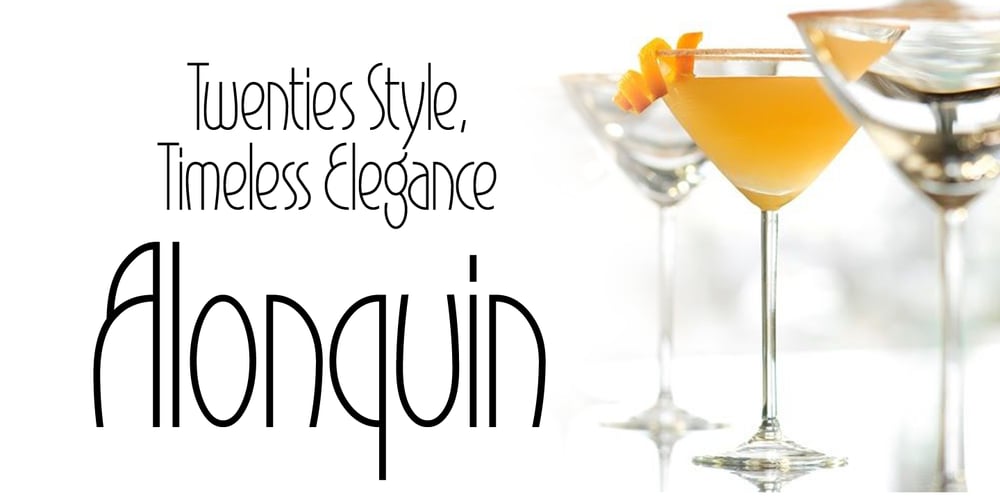
Alonquin Font Family was designed by Keith Tricker and published by Studio K. Alonquin contains 2 styles and family package options. Alonquin is a typographical tribute to Dorothy Parker and the New Yorker crowd who haunted the Alonquin hotel in its 1920s heyday, sharing scintillating one-liners over sparkling cocktails. Deco and decadent, it aims to recapture the spirit of the age (mostly gin from what I can make out!)